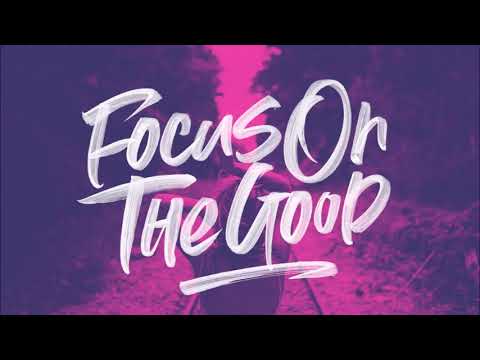
Summer Loving Font Collection is a contemporary hand-painted font collection published by Nicky Laatz which were designed as ultra-textured SVG fonts. SVG fonts can be used in Photoshop CC 2017 or Illustrator CC 2018 (or newer). Featuring four high resolution paintbrush details, !
Summer Loving Font Collection details
Glyphs: Basic Latin, Diacritics, Euro, Central Europe, Ligatures, Alternates, Swashes
Styles: SVG Font, Sans SVG Font, REGULAR SCRIPT Font, SOLID SANS Font